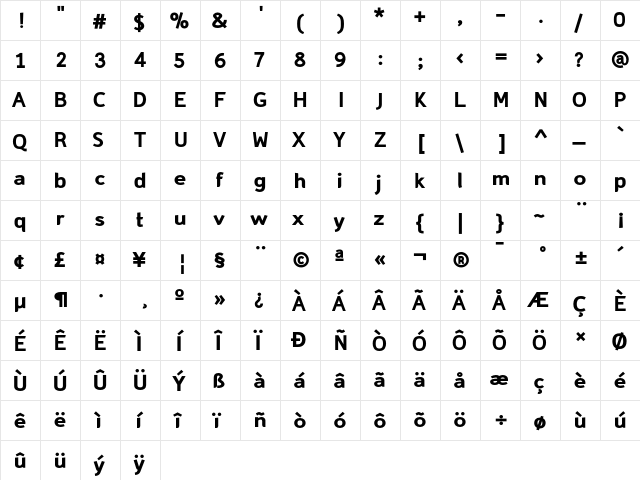
Domestos98 Black
Design Context for Domestos98 Typeface
Domestos98 takes a measured approach to typography — its balanced proportions and neutral character make it a reliable workhorse for both digital and print work.